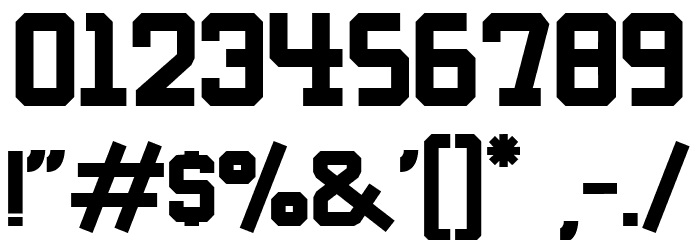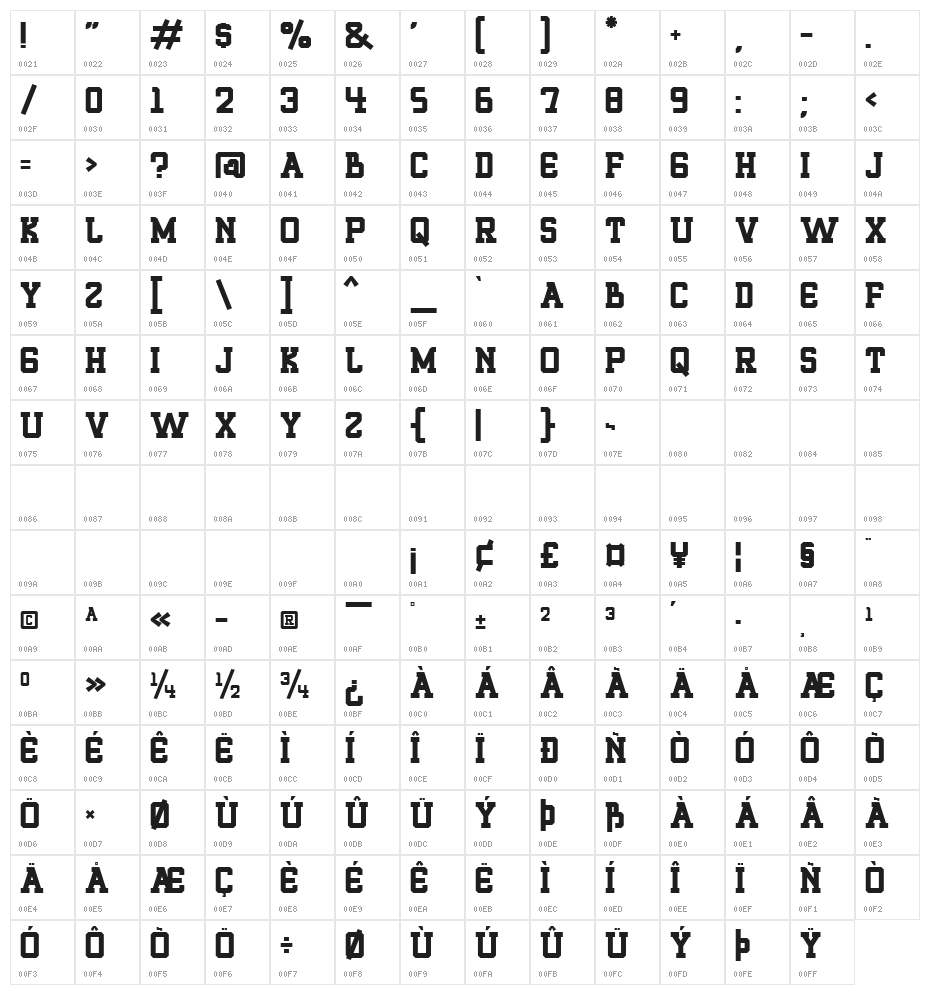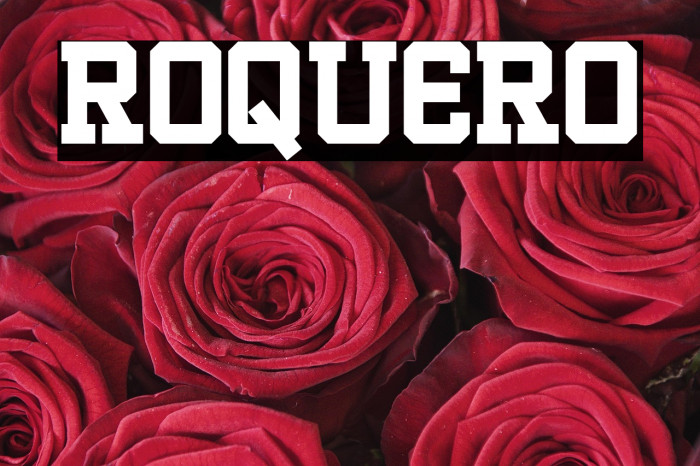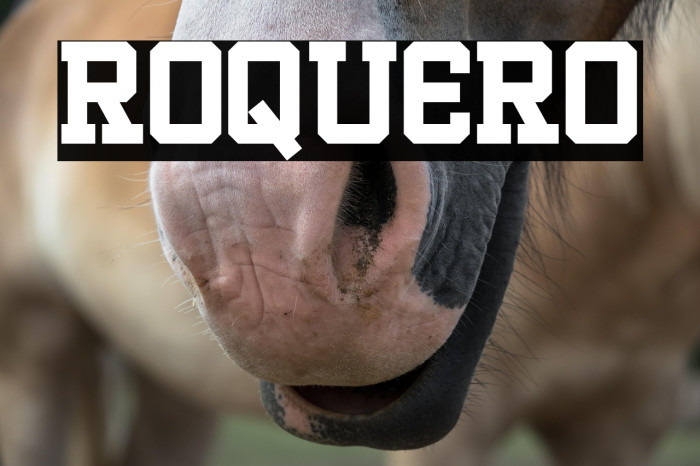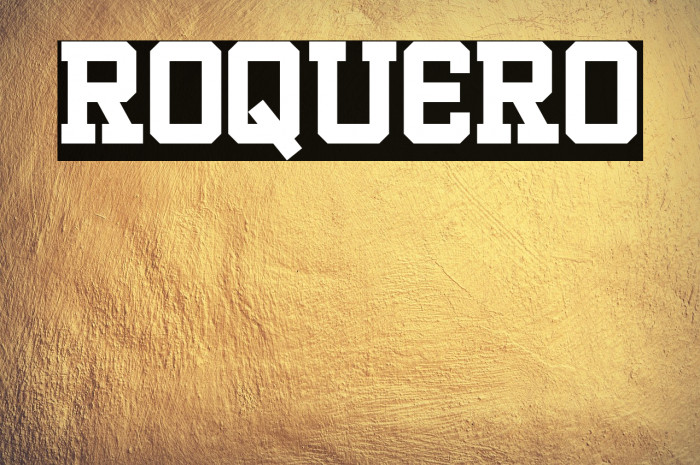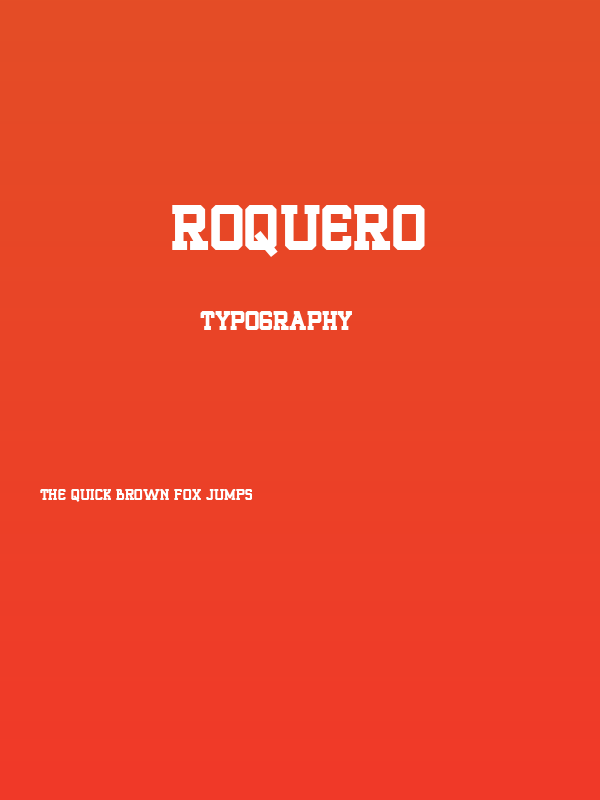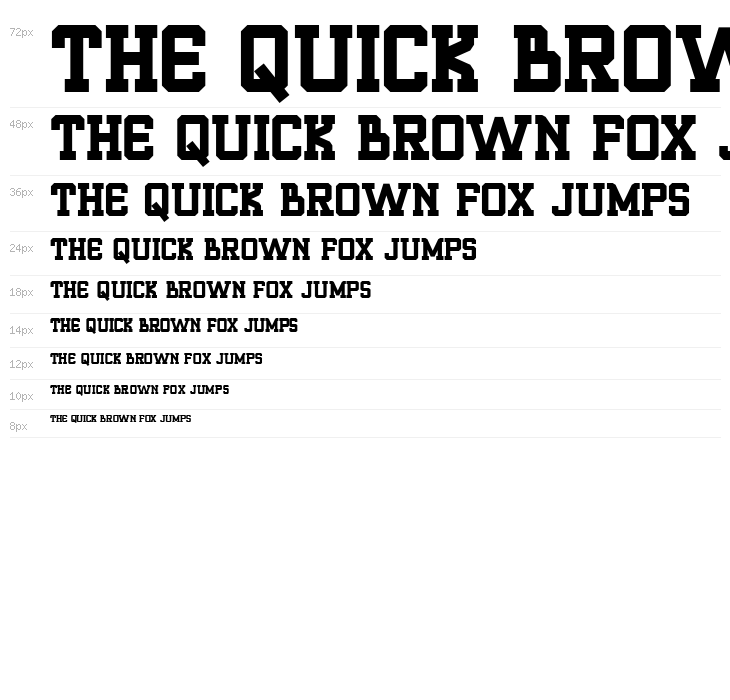
ROQUERO Font
ROQUERO Description
This font features a bold and robust design with strong geometric shapes and a solid presence. The characters are blocky and angular, giving it a modern and industrial feel. The uppercase letters are uniform in height, with consistent stroke widths that add to its bold appearance. The numerals and special characters maintain the same sturdy style, ensuring a cohesive look across all text. This font's design is reminiscent of sports or collegiate themes, making it ideal for projects that require a strong and impactful visual statement.
| Proposed Projects | Ideal for sports branding, posters, headlines, and any project needing a strong visual impact. |